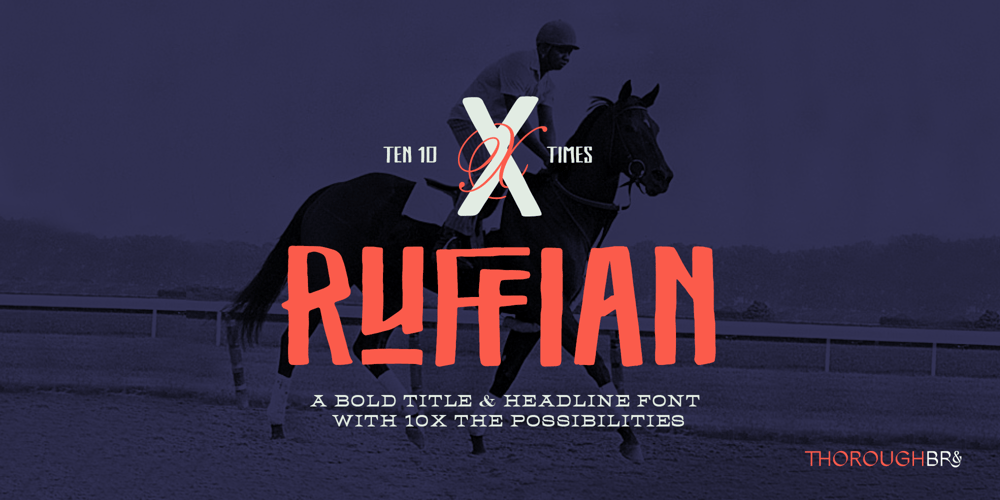
X Ruffian
X Ruffian font
X Ruffian Font Family was designed by Jeff Epp and published by ThoroughBR&. X Ruffian contains 1 styles and family package options. X RUFFIANRuffian was a champion thoroughbred horse who won 10 consecutive races. A feat worth mentioning & repeating. Her tenacity & steadfast approach established the basis for this variable based font. The X represents both the Roman numeral 10, but also the X-factor for creating bespoke works of art. It is quite befitting that this font be named after a legendary champion. Which begs the question…Do you champion variety? X Ruffian’s design motif uses a broad tipped chiseled marker that was set at an angle for that extra bit of vigor. Identical letter forms defeat that truly “hand rendered” look that we ultimately strive for. Each uppercase letter offers 10 (X) or more stylistic alternatives, the lowercase and number sets have 3+ options and an over under for those special characters that yield a long bottom or top (see images). Ligatures & bonus characters can add that unique offering to your already individual style & can easily be found via the glyphs panel in any open type program. With a gigantic glyph count of 688, you’ll never run out of options. As a right of passage, we felt obliged to include a roman numeral set as the name beckons, which differs from the standard letter form in which you would use to create. This is a variable winner. See you at the races!